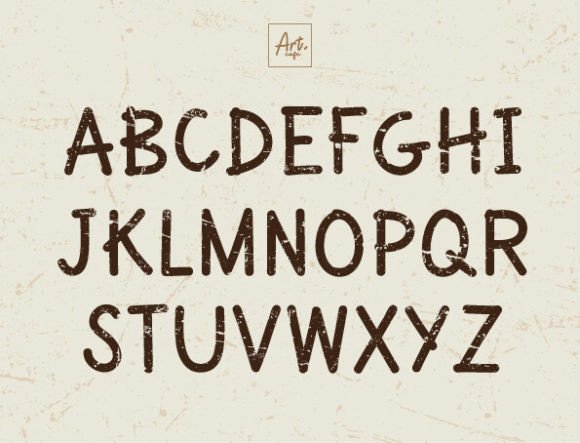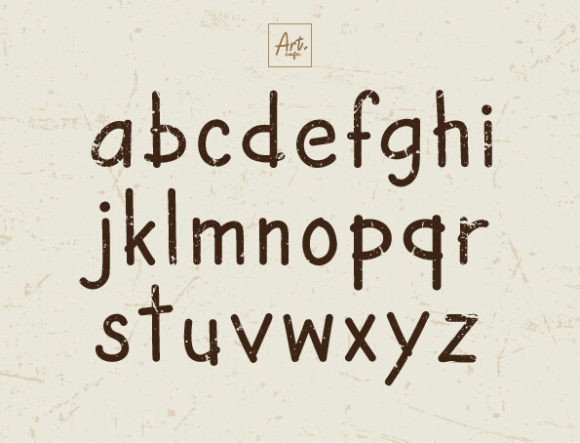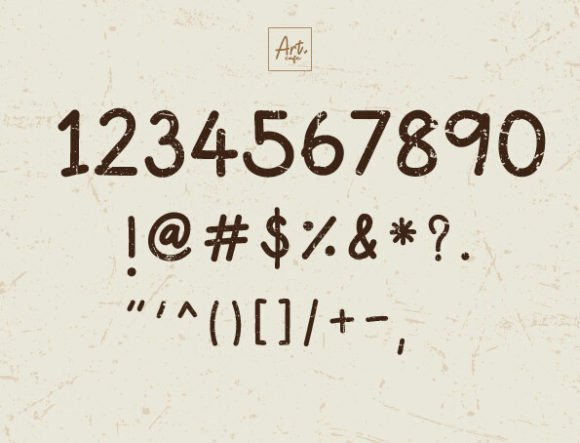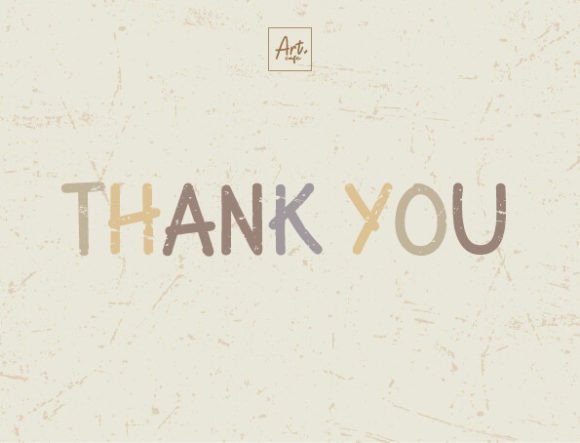
Introducing Farmer Font: The Cool Handwritten Style with a Distressed Grunge Texture
Are you tired of using the same old fonts in your creative projects? Do you want to add a touch of personality and uniqueness to your designs? Look no further than the Farmer Font, a cool handwritten font with a distressed grunge texture that’s sure to take your work to the next level.
What is Farmer Font?
Farmer Font is a carefully crafted handwritten font that’s designed to give your projects a rustic, homespun feel. With its distressed grunge texture, this font adds a layer of depth and character that’s hard to replicate with more traditional fonts. Whether you’re working on a logo, a poster, or a social media graphic, Farmer Font is the perfect choice for designers and crafters who want to add a touch of personality to their work.
Key Features of Farmer Font
• Handwritten style: Farmer Font is a genuine handwritten font, carefully crafted to capture the imperfections and quirks of real handwriting.
• Distressed grunge texture: The font features a distressed grunge texture that gives it a worn, vintage look.
• Unique character: Farmer Font has a unique character that’s perfect for designers and crafters who want to stand out from the crowd.
How to Use Farmer Font in Your Creative Projects
Farmer Font is a versatile font that can be used in a wide range of creative projects, from logos and posters to social media graphics and more. Here are a few ideas to get you started:
• Logos and branding: Use Farmer Font to create a unique and memorable logo for your business or brand.
• Posters and flyers: Add a touch of personality to your posters and flyers with Farmer Font.
• Social media graphics: Use Farmer Font to create eye-catching social media graphics that stand out from the crowd.
• Invitations and cards: Add a personal touch to your invitations and cards with Farmer Font.
Tips for Getting the Most Out of Farmer Font
Here are a few tips for getting the most out of Farmer Font:
• Experiment with different colors: Farmer Font looks great in a wide range of colors, so don’t be afraid to experiment and find the perfect color for your project.
• Mix and match with other fonts: Farmer Font pairs well with a wide range of other fonts, so feel free to mix and match to create a unique look.
• Use it sparingly: Farmer Font is a bold font, so use it sparingly to add emphasis and create visual interest.
Farmer Font is a cool handwritten font with a distressed grunge texture that’s perfect for designers and crafters who want to add a touch of personality to their creative projects. With its unique character and versatility, Farmer Font is sure to become a go-to font in your design arsenal. So why wait? Add Farmer Font to your projects today and enjoy the results!